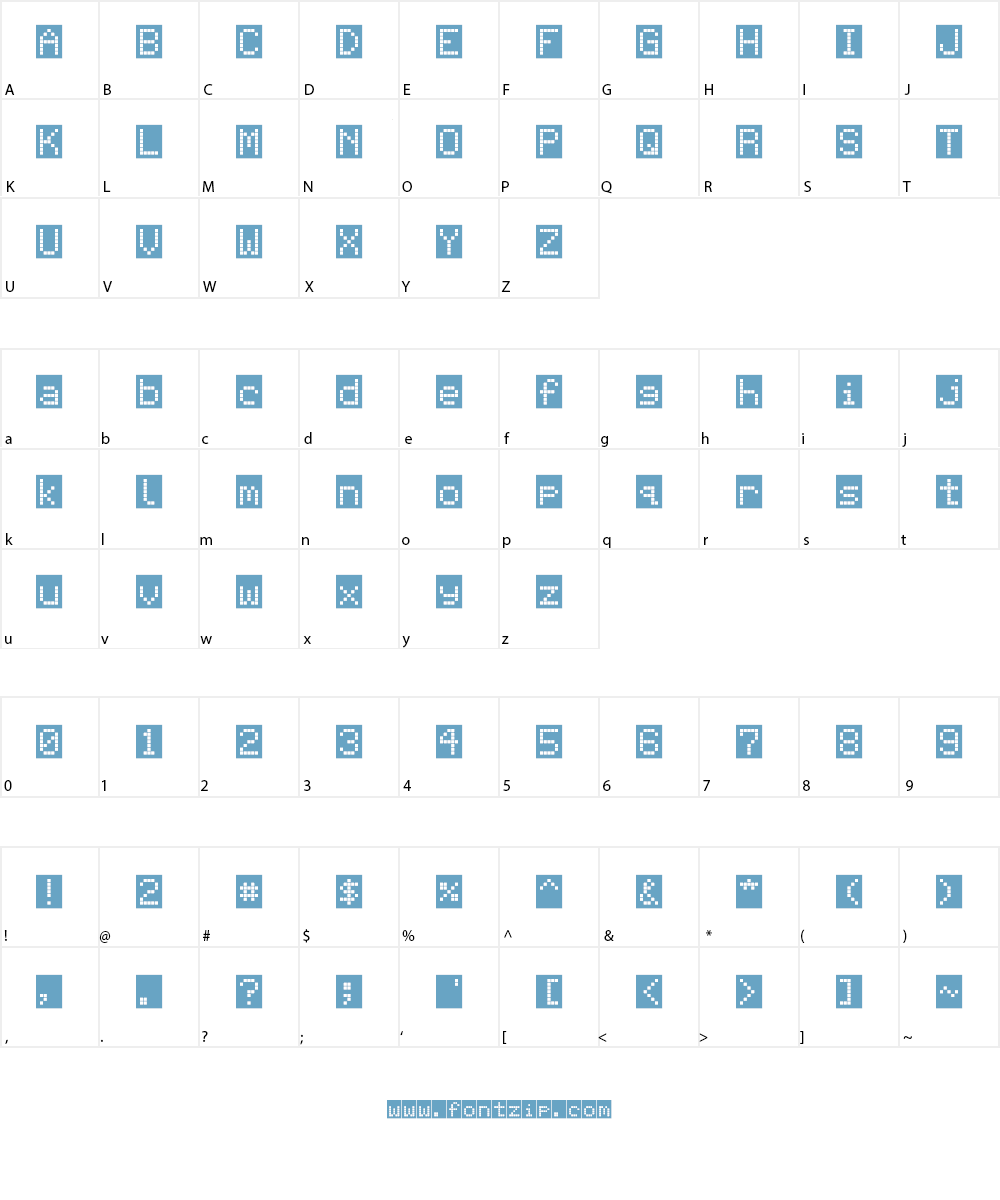
Another LED scoreboard-styled typeface to throw onto the pile of LED scoreboard-styled typefaces.
PUBLIC SIGHTINGS:
-Depeche Mode's Countdown website
CHANGES IN VERSION 1.2:
-Removed Erbos Draco 2nd version because that design is now part of ErbosDraco Nova!
-Essentially, V.1.2 has de-evolved into V.1.0 :P Are we not men?